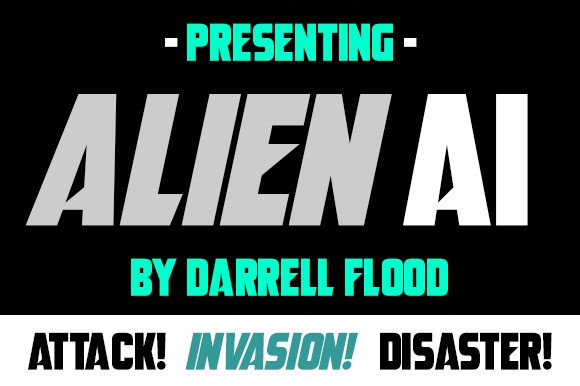
Alien Ai Font
Alien Ai Font, a futuristic sci-fi font in a hard hitting action style. Perfect for high tech adventures, space journeys, alien encounters and general modern use!